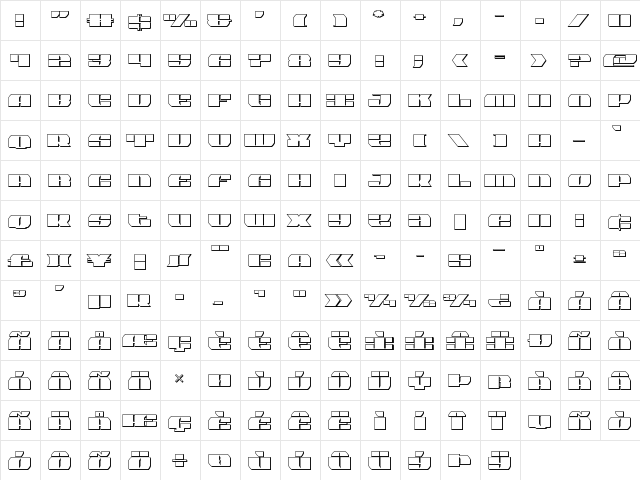
Joy Shark Outline Outline
Design Context for Joy Shark Outline Typeface
Joy Shark Outline is built around its visual character rather than neutral utility — its distinctive forms are designed to make an impression at display sizes.
Font Pairing: Pair with a clean neutral sans-serif for body copy to let Joy Shark Outline's character lead without overwhelming the composition.
Pro Tip: Treat Joy Shark Outline as the centrepiece of your typographic hierarchy. One strong heading set in a decorative face can carry an entire layout.